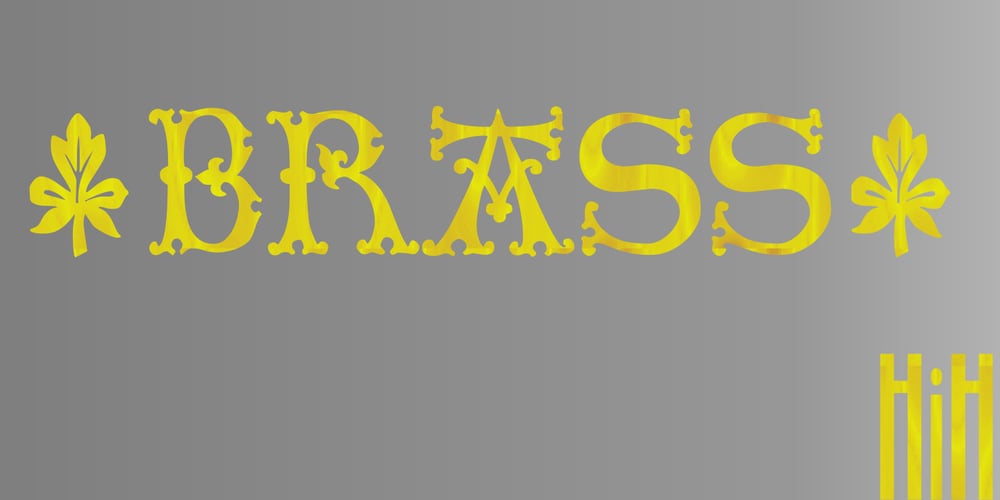
Brass Font Family was designed by published by HiH. Brass contains 1 styles and family package options. The Brass Family has a lineage that extends into English history. About five hundred years ago a devout, but anonymous Englishman gave glory to the God he worshipped by designing the capital letters and decorations of these two fonts. Originally recorded in The History Of Mediaeval Alphabets And Devices by Henry Shaw (London 1853), they are described by Alexander Nesbitt in his Decorative Alphabets And Initials (Mineola, NY 1959) as “Initials and stop ornaments from brasses in Westminster Abbey.” I wish I could say I remember seeing them when I was there, but that was forty-two years ago and all I remember was seeing the tomb of Edward the Confessor. One definition of “stop” as a noun is a point of punctuation. I have heard people from the British Isles speak of a “full stop” when referring to a period. Some may remember a 19th century form of communication called a telegram being read aloud in an old movie, with the use of the word “stop” to indicate the end of a sentence or fragment. A full dozen of these stop ornaments are provided. They occupy positions 060, 062, 094, 123, 125, 126, 135, 137, 167, 172, 177 & 190. The Brass Family consists of two fonts: Brass and Brass Too. Both fonts have an identical upper case and ornaments, but paired with different lower cases. Although the typefaces from which the lower cases were drawn are both of modern design, both are interpretations of the textura style of blackletter in use in England when the upper case and ornaments were fashioned for the Abbey. Brass is paired with Morris Gothic, which matches the color of the upper case quite well. Brass Too is paired with Wedding Regular, which is distinctly lighter than the upper case. I find it very interesting how each connects differently. The resulting fonts are unusual and most useful for evoking an historic atmosphere.